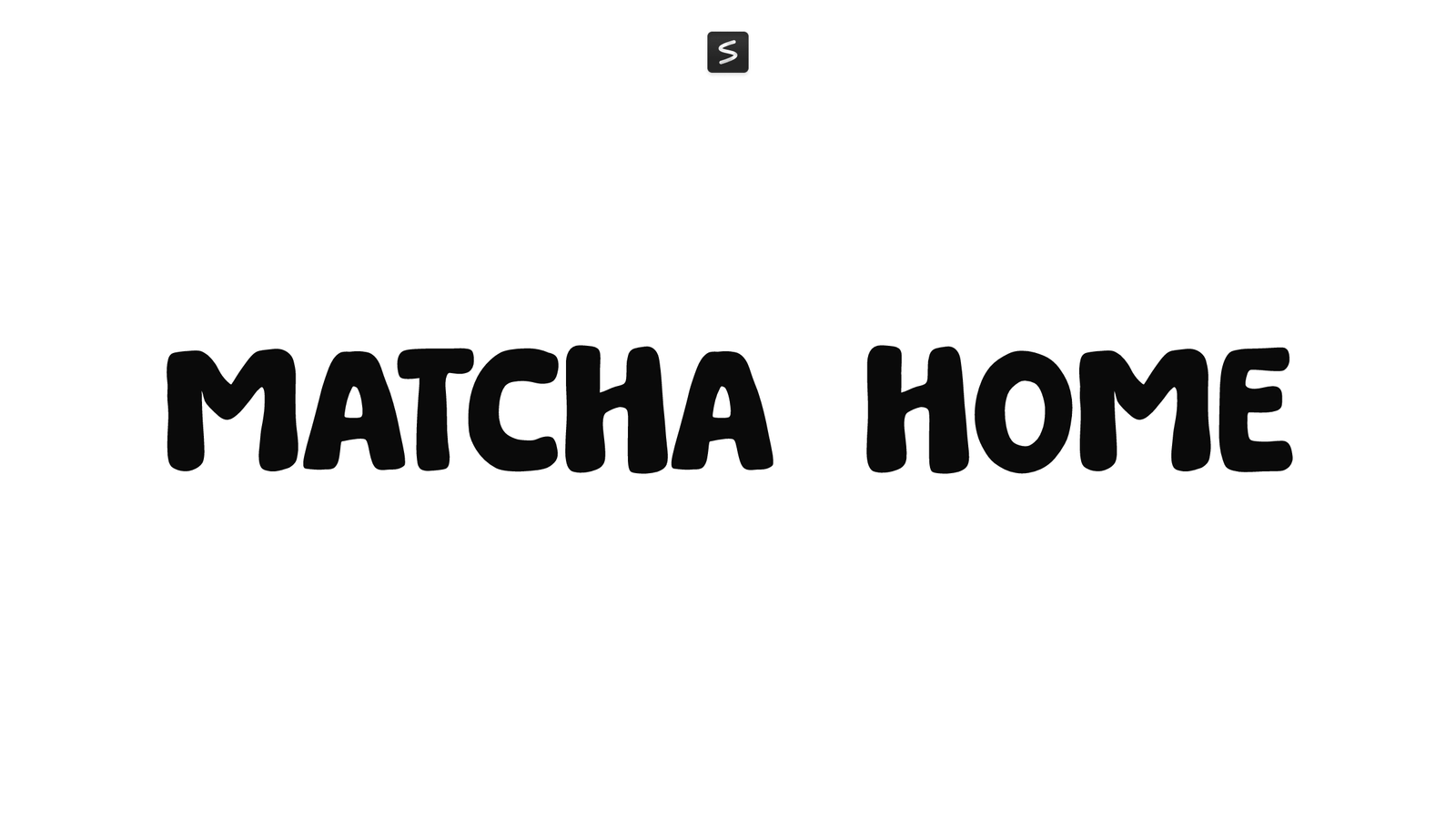
Matcha Home is a chunky, rounded sans-serif by Khurasan™ that leans into cartoon aesthetics with soft corners and a heavy weight. It reads as approachable and informal, making it well-suited for friendly, youthful applications.
Its thick strokes and full curves give text a playful, cushioned quality. The overall effect is warm and approachable without feeling childish. The font works well for headlines, branding, social media graphics, game UI, and any project that needs a touch of softness and personality.
Matcha Home fits comfortably into spaces where you need a display font that feels modern but not sterile. It’s a straightforward choice for designs targeting younger audiences or projects with a casual, friendly tone.